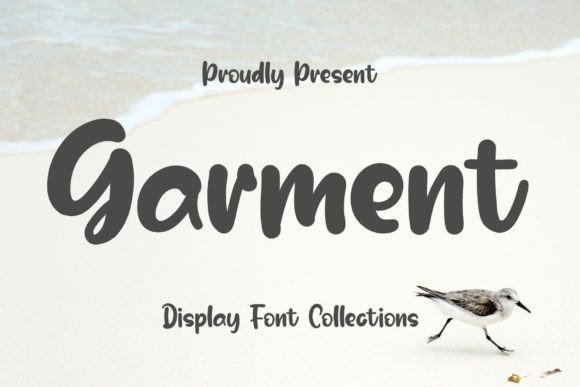
**Unleash Your Creativity with Garment: The Display Font That Ignites Imagination**
Welcome to the realm of Garment, a captivating display font that will transform your mundane texts into masterpieces. Crafted with meticulous care by the renowned YanStudio, Garment is an artistic gem that combines elegance and playfulness. It is tailored to elevate your designs, whether you're a seasoned graphic artist seeking inspiration or a budding creator eager to make a lasting impression.
Indulge in the beauty of Garment's meticulously crafted characters, each stroke imbued with a unique personality that dances harmoniously on the page. Its versatility knows no bounds, making it the perfect choice for a wide array of projects. Embrace the power of Garment to create stunning invitations, captivating social media posts, eye-catching logos, and more.
Step into the spotlight with Garment, and let your words shine brighter than ever before. Its bold presence commands attention, while its refined curves add a touch of sophistication to every design. As you explore the depths of Garment's versatility, you'll discover new ways to express yourself creatively.
**Elevate Your Designs with Garment, the Perfect Font for School Notes**
For students seeking fonts that inspire learning and ignite creativity, Garment is your muse. Its clear and legible characters make note-taking a breeze, ensuring that every important concept is captured effortlessly. Let Garment be your companion as you embark on academic adventures, transforming your notes into works of art that will make studying a joy.
With Garment, your notes will blossom into vibrant expressions of your intellect. Embrace the power of a font that not only conveys information but also sparks inspiration. Let Garment ignite your imagination and unlock your boundless potential.
**Welcome Garment into Your Font Library and Witness the Magic Unfold**
Embrace the versatility of Garment, and watch your designs flourish with newfound brilliance. Its adaptability knows no limits, effortlessly complementing a myriad of design styles. Whether you're creating bold headlines, enchanting invitations, or captivating social media graphics, Garment will elevate your creations to new heights.
Join the creative revolution and add Garment to your font library today. Unleash a world of possibilities and embark on a journey of self-expression like never before. With Garment as your artistic ally, the boundaries of your imagination will dissolve, and your designs will soar to breathtaking heights.